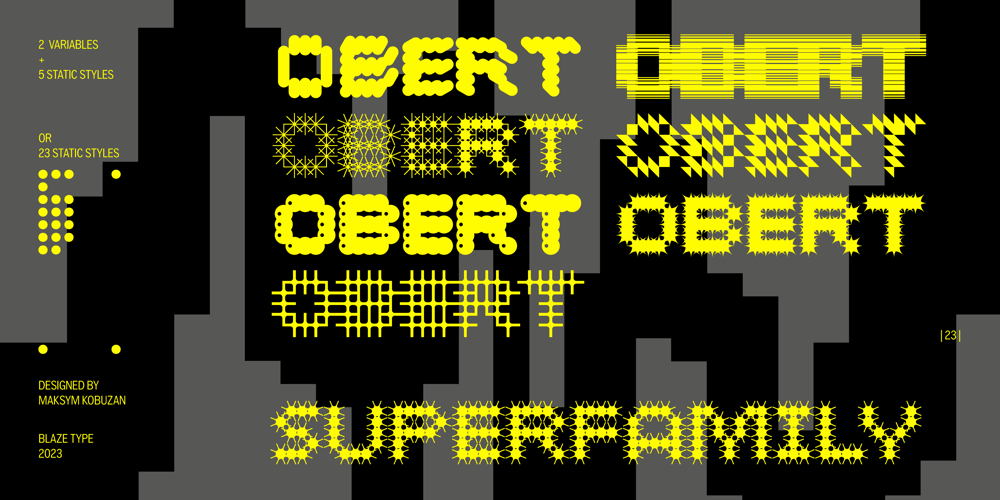
Obert VF Font Family was designed by Maksym Kobuzan and published by Blaze Type. Obert VF contains 2 styles and family package options. Obert Superfamily consists of several slightly different typefaces.Obert BASIC is a 2-axis variable experimental modular typeface. Each module resembles a capsule in appearance and can rotate 180 degrees, and characters can tilt 45 degrees without distorting the module. With this, the letters are turned into abstract forms that can be used as decoration. Using the sliders to edit the Slant and Rotation, you can achieve the most unexpected results.Obert BRIGHT is also part of the OBERT Superfamily. With the help of 2 variable axes, it can create the effect of brightness. And also each module can be rotated 180 degrees, creating a flickering effect.Obert EXP is a separate 5 styles inspired by different properties of objects or things that surround us.Obert Superfamily consists of 23 static styles or 2 variable + 5 static styles.The name of the typeface comes from the Ukrainian word «Оберт», which means “Rotation”.Equipped with Extended Latin, Greek and Cyrillic support.